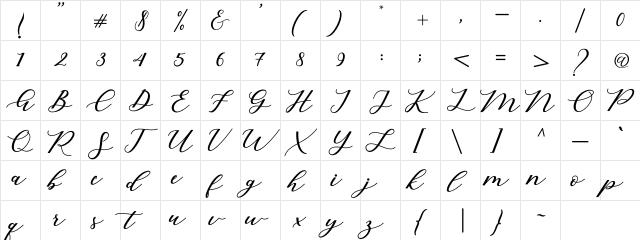
Cintya Script Regular
| Foundry | Ximen Studio |
Design Context for Cintya Script Typeface
Cintya Script brings a calligraphic fluidity to the page — its connecting strokes and expressive curves give it an unmistakably human quality.
Font Pairing: Combine Cintya Script with a simple geometric sans for maximum contrast — the tension between flowing curves and clean structure is a classic typographic pairing.
Pro Tip: Pair Cintya Script with a clean sans-serif for supporting text. The contrast between fluid script and geometric structure creates an elegant typographic hierarchy.